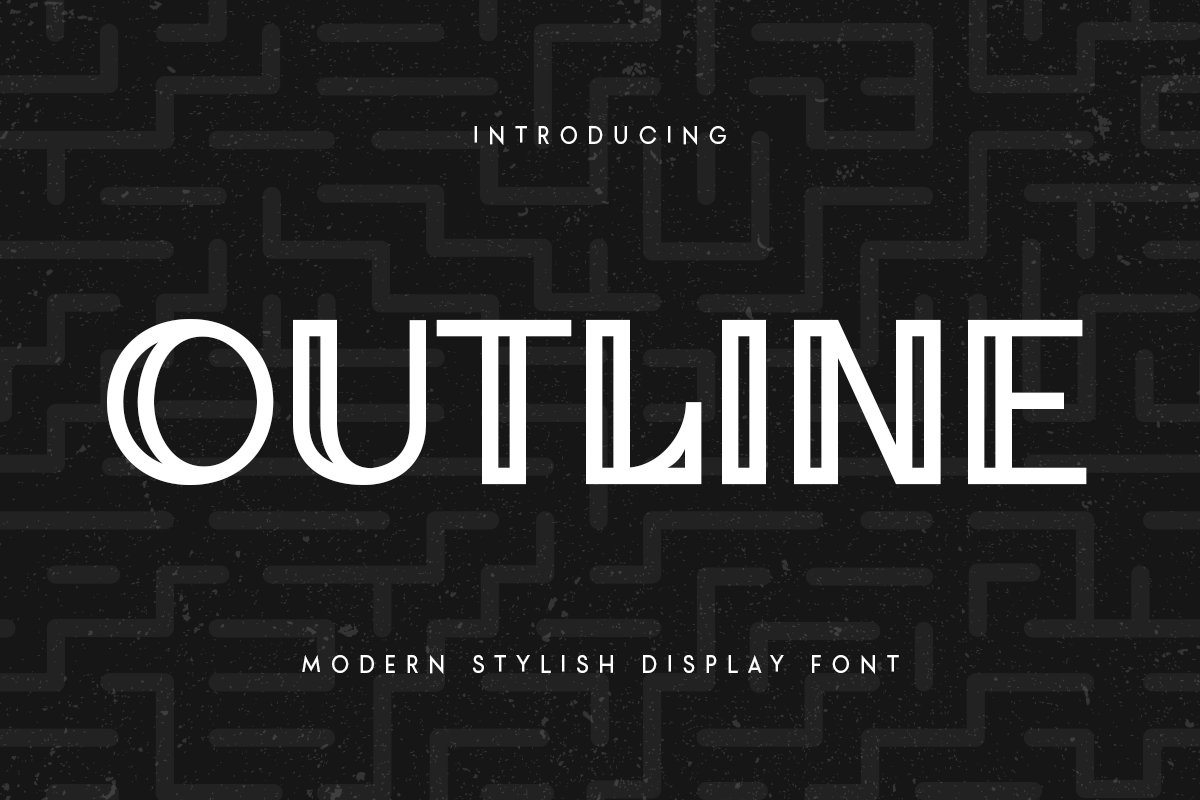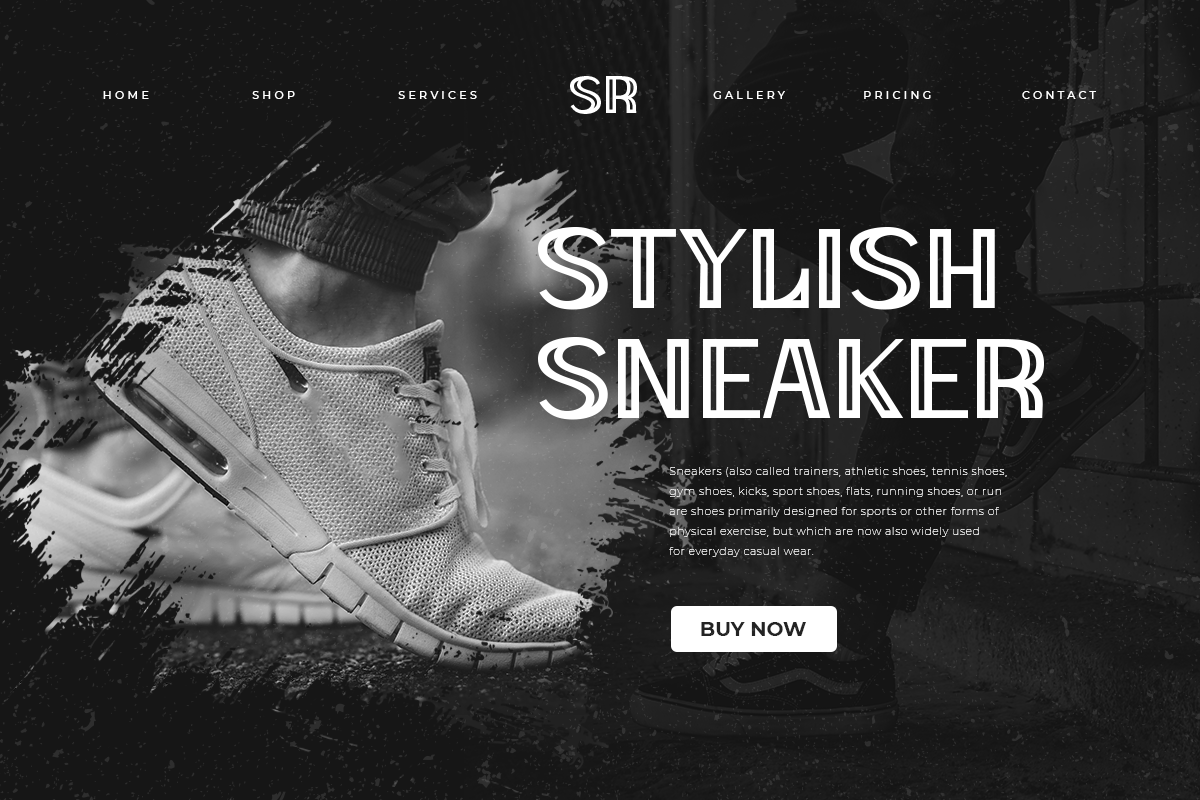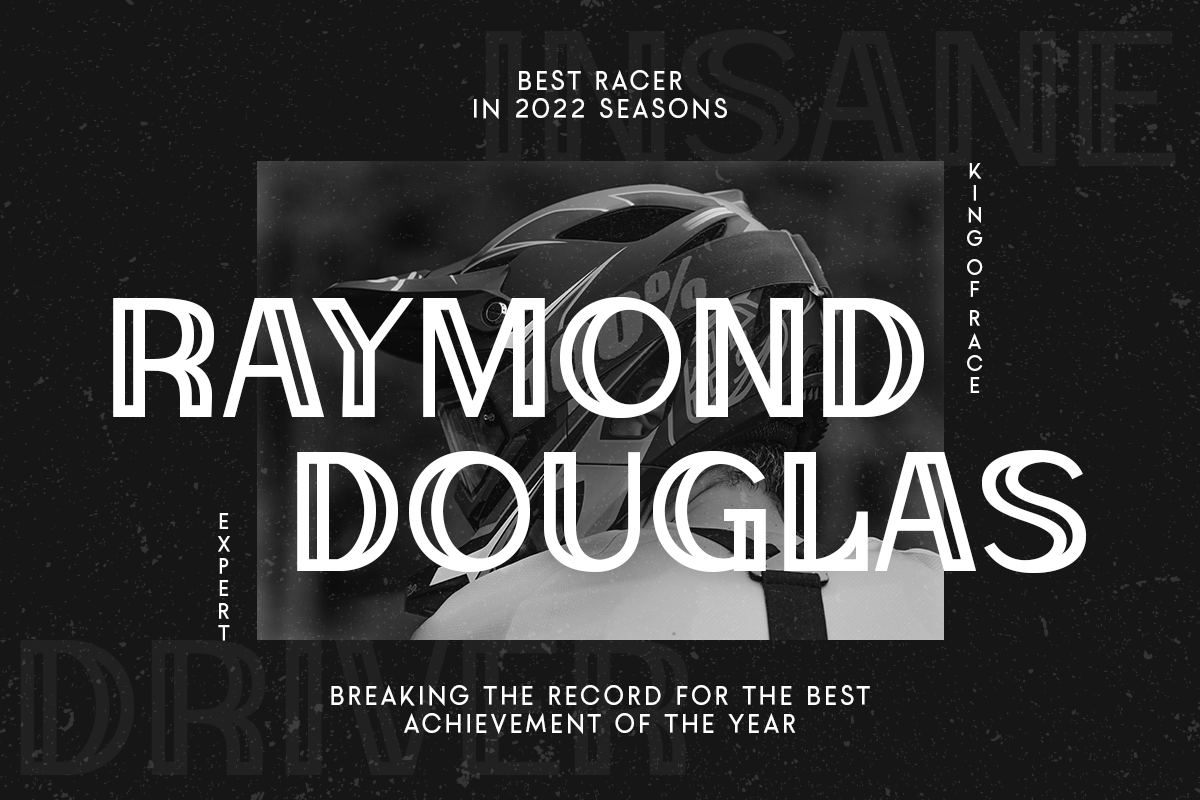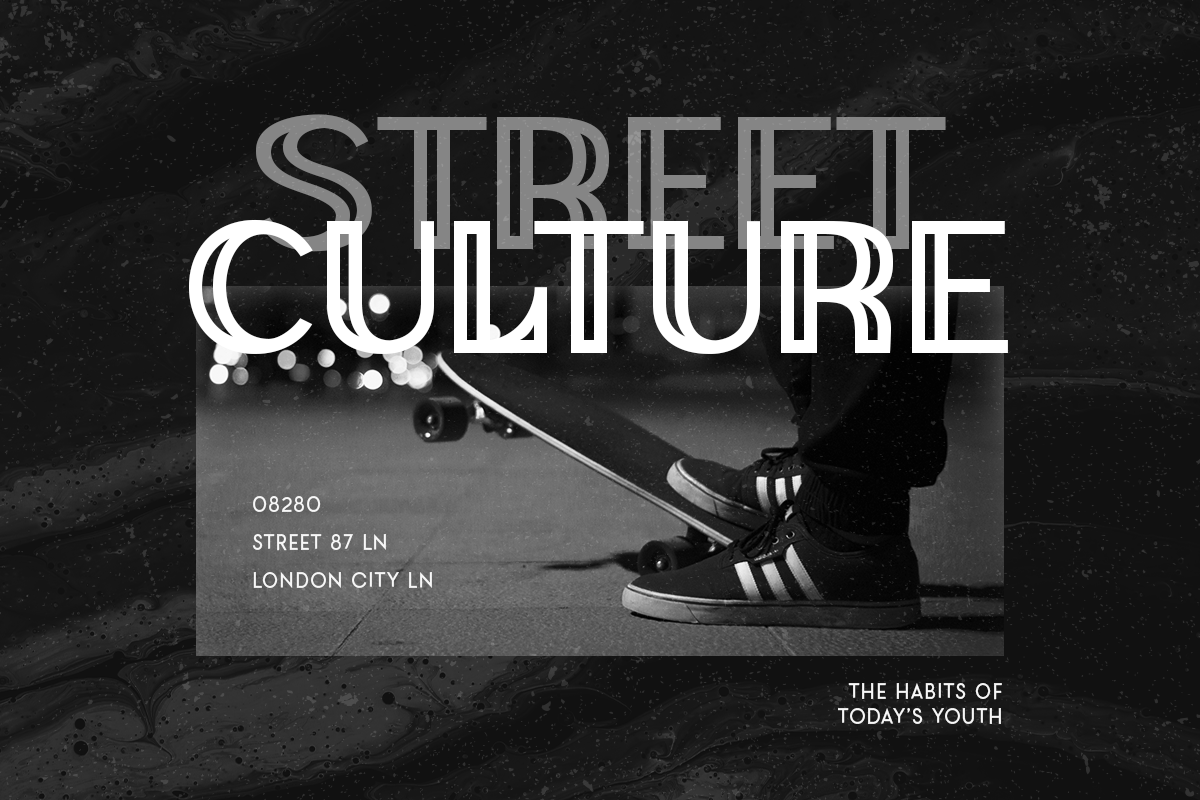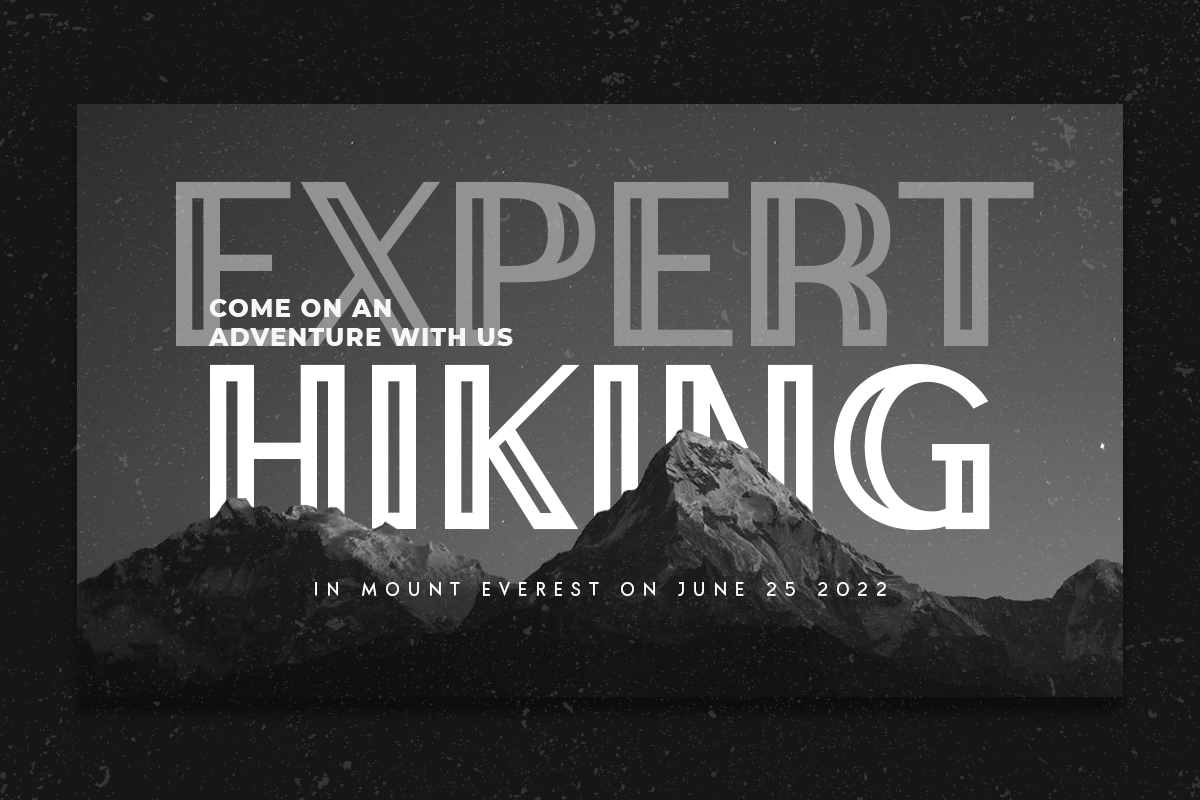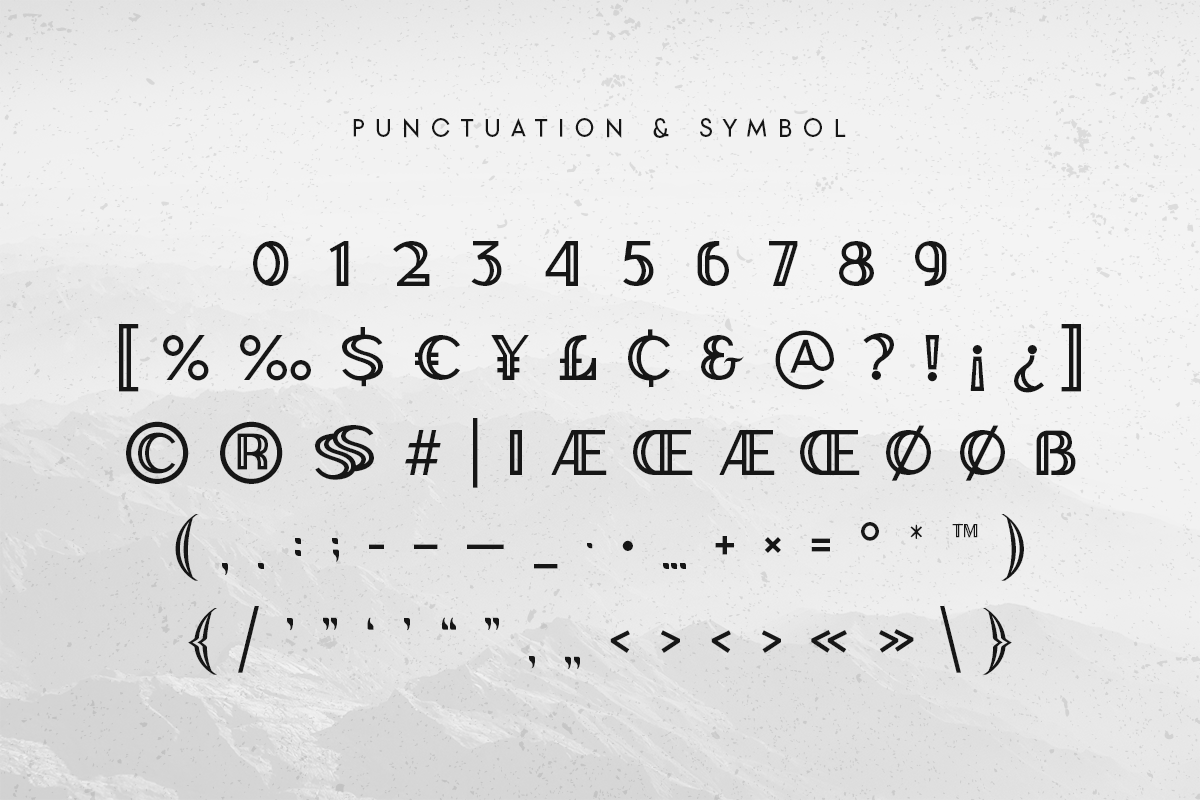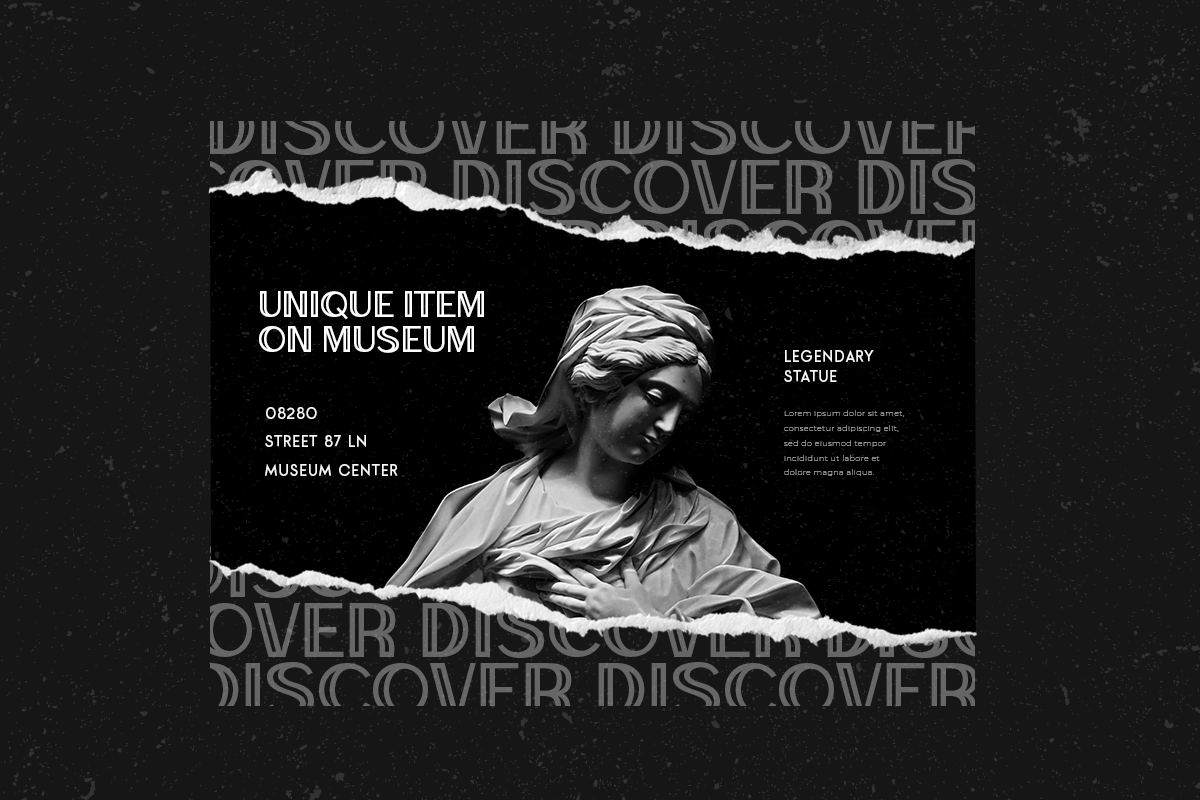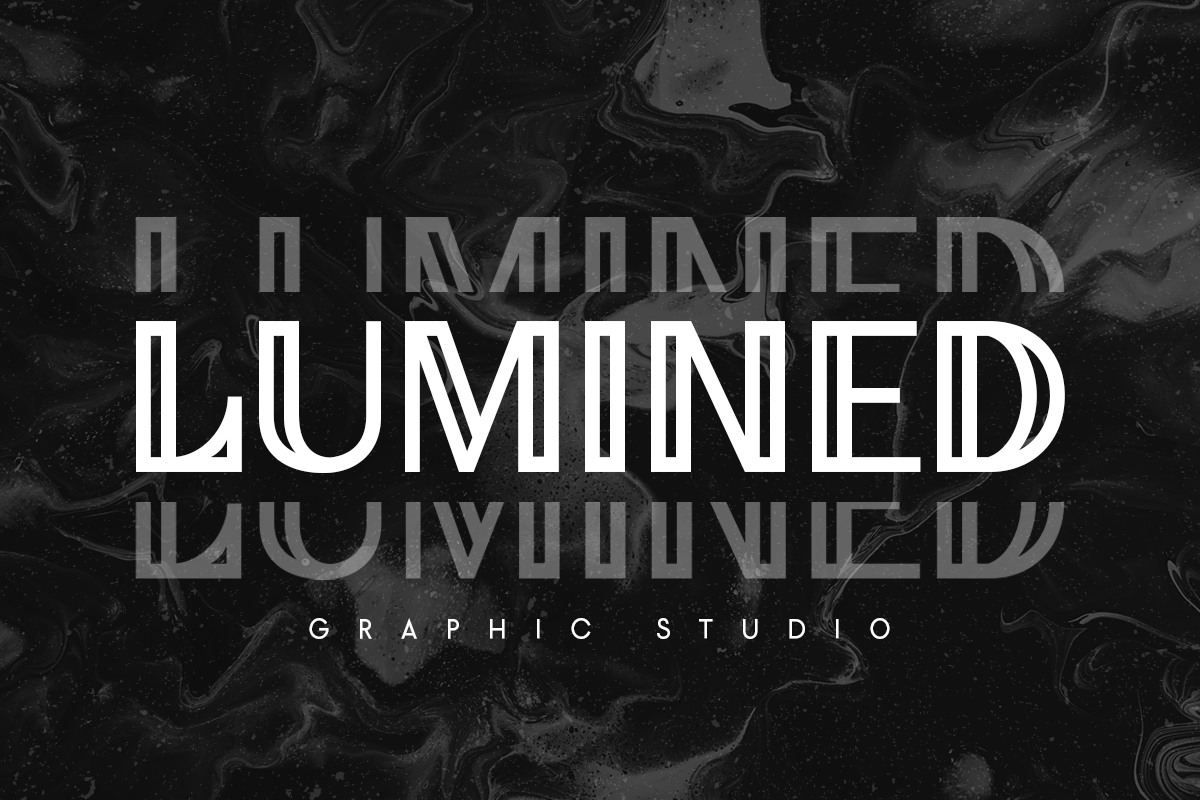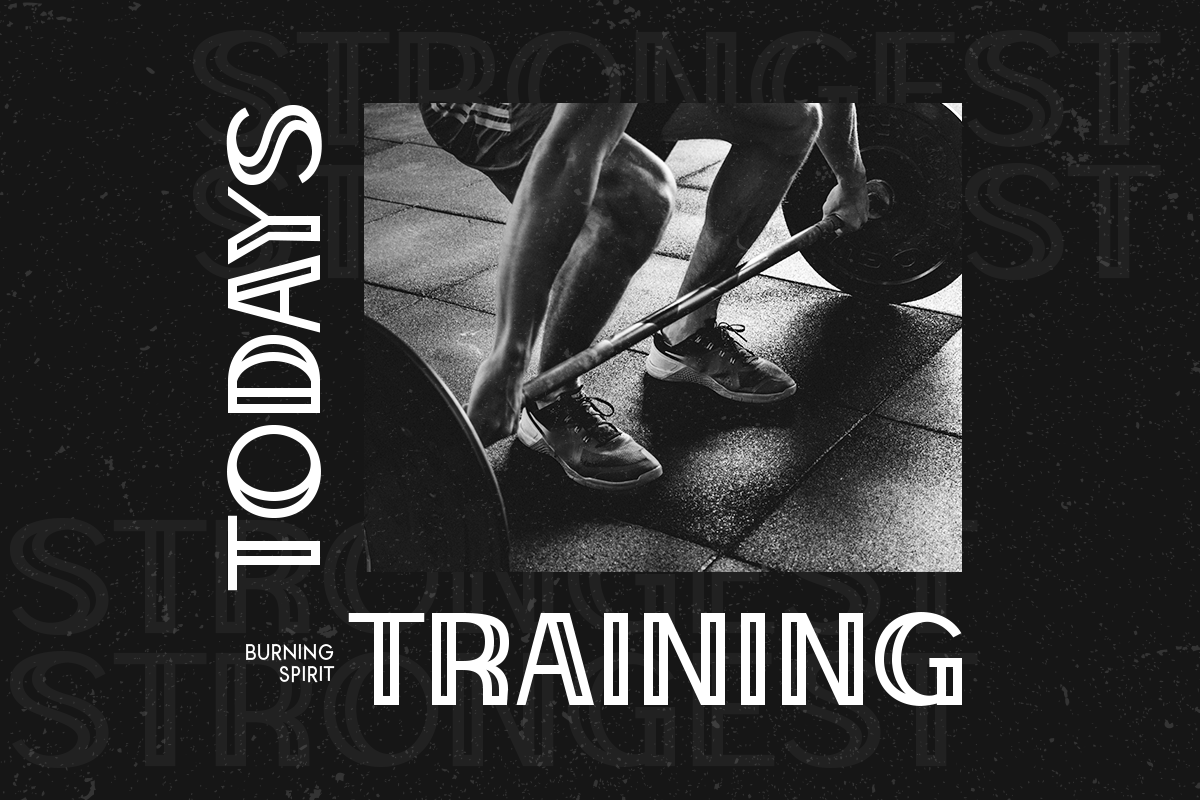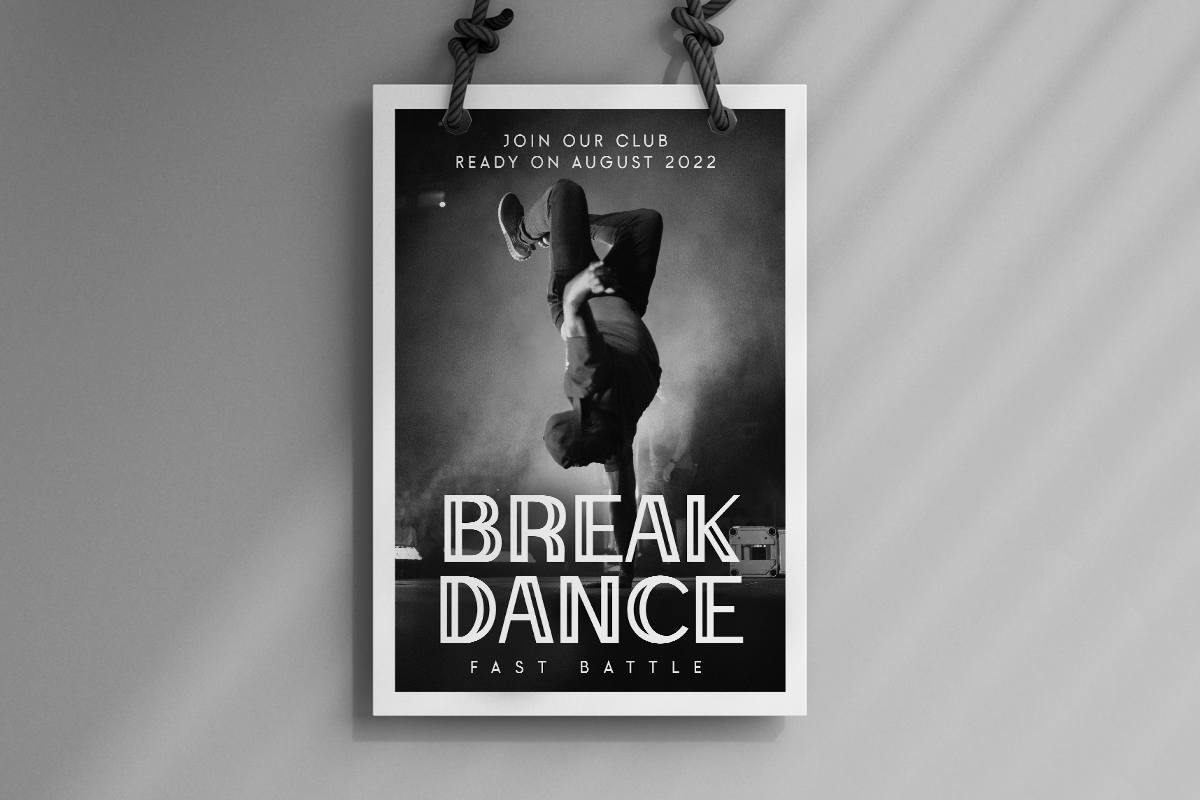
Outline – Modern Stylish Display Font
Outline is a Modern Stylish Display Font that perfect for headline, branding, logo, poster design, etc
A new Display Font that we created special for Headline, Title and more stand out typography needs. It’s so perfect to add your style and headline overview. And specially for Headline font, we crafted for unique style and modern feels so enjoy to create any project that will show your main idea out.
- Unique style to get creative variations